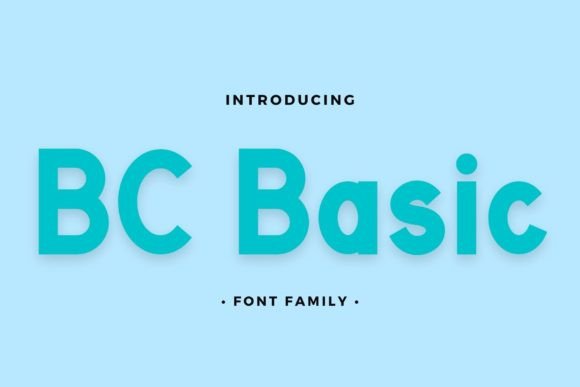
Bc Basic: A Clean Sans Serif for Modern Editorial
I sat down last Tuesday with a blank canvas for my upcoming lifestyle newsletter, feeling that familiar creative block. The layout was structured, the content was written, but the visual voice felt off. I needed a typeface that could carry the weight of a professional publication without shouting for attention. That is when I turned to Bc Basic, a simple and clean sans serif font that promised exactly the kind of quiet confidence my project lacked. As I began typing the headline, it became immediately clear why this specific set of Fonts has become a go-to choice for independent publishers and design-conscious creators.
Why Bc Basic Defines Modern Blog Headers and Titles
When selecting Fonts for a digital magazine or a personal blog, the header is often the first thing a reader encounters, setting the tone for everything that follows. Bc Basic excels in this role because its geometry is balanced yet approachable. Unlike many aggressive display fonts that dominate the screen, this sans serif font allows the words themselves to breathe. I tested it on a mock-up for a recipe ebook cover, and the result was instantly legible even at smaller sizes. The letterforms are open and friendly, creating an immediate sense of trust and clarity that is essential for editorial design. If you are looking for a way to make your blog headers pop without sacrificing readability, Bc Basic offers a refined solution that feels both contemporary and timeless.
Creating Visual Hierarchy with Bc Basic in Printables
One of the most challenging aspects of designing printable planners or coaching workbooks is establishing a clear visual hierarchy without cluttering the page. Bc Basic solves this by offering a versatile range of weights that guide the eye naturally from section headings to body text. In my recent test run for a digital course PDF, I used the bolder variations of this sans serif font for chapter openers and pull quotes, while reserving the lighter weights for subtitles. The contrast created a rhythm that made the dense information feel manageable and inviting. This level of control is rare in free Fonts, making Bc Basic a premium asset for anyone serious about their brand identity. Whether you are designing a wedding guide or a business proposal, the ability to scale these characters effectively ensures your message lands with precision.
Bc Basic for Wedding Invitations and Elegant Branding
There is a misconception that sans serif fonts lack the romance required for wedding stationery or luxury branding, but Bc Basic proves otherwise. Its clean lines and neutral stance allow it to pair beautifully with more decorative elements like script fonts or handwritten accents. When I sketched out a concept for a minimalist wedding invitation suite, using Bc Basic for the venue details and date provided a crisp backdrop that let the couple's names shine. This versatility means the font can easily be matched to an incredibly large set of projects, from high-end packaging design to intimate event graphics. It does not impose a heavy personality; instead, it supports the existing mood of the design, making it an ideal choice for brands that value elegance and simplicity over loud trends.
Enhancing Readability in Long-Form Content and Ebooks
While many designers reach for elaborate scripts for titles, the true test of a great font lies in its performance within long-form reading materials. Bc Basic shines here as a highly readable sans serif font that reduces eye strain during extended reading sessions. For my latest article series, I swapped out a complex typeface for this one and noticed how much smoother the reading experience became. The x-height is generous, ensuring that lowercase letters remain distinct on mobile screens, which is crucial for modern newsletters and digital magazines. If you are an author creating an ebook or a coach building a workbook, choosing Fonts that prioritize user comfort is non-negotiable. Bc Basic delivers this comfort effortlessly, allowing your audience to focus entirely on your content rather than struggling with the typography.
How Bc Basic Supports Digital Magazine Layouts
Digital magazine layouts require a font that looks just as sharp on a tablet as it does on a desktop monitor. Bc Basic maintains its structural integrity across various resolutions, making it a reliable workhorse for responsive web design and app interfaces. During my redesign of a monthly creator newsletter, I utilized this typeface for navigation menus, captions, and sidebars. The consistency it brought to the layout unified disparate sections into a cohesive whole. Many generic Fonts break down or appear blurry when scaled up for large hero images, but Bc Basic retains its crisp edges and clean curves. This reliability is vital for publishers who need their designs to look professional regardless of where they are viewed. By adding this font to your creative designs, you ensure that your publication maintains a polished appearance across all devices.
Pairing Bc Basic with Serifs for Maximum Impact
The true power of Bc Basic emerges when it is paired strategically with other typefaces. In editorial design, combining a clean sans serif with a classic serif font creates a dynamic tension that keeps readers engaged. I found that pairing Bc Basic with a traditional serif for body copy resulted in a sophisticated look that elevated the perceived value of my content. The neutrality of the sans serif allows the serif to take center stage for storytelling, while the sans serif provides structure for headlines and UI elements. This combination works exceptionally well for lifestyle blogs, travel guides, and fashion editorials. When selecting Fonts for your next project, consider how Bc Basic can act as the perfect foil to more ornate styles, creating a balanced and harmonious typographic system.
Elevating Your Creative Designs with Bc Basic
In the end, the right font can transform a good design into a great one. Bc Basic offers that transformative quality through its blend of simplicity, versatility, and readability. Whether you are crafting a logo, designing a social media graphic, or laying out a full-length book, this sans serif font adapts to your needs without losing its character. Add it to your creative designs and notice how it makes your work feel more intentional and professional. For bloggers, publishers, and independent creators, having a reliable tool like Bc Basic in your arsenal is a game-changer. It empowers you to focus on your message while the typography quietly does the heavy lifting, ensuring your audience stays engaged from the first word to the last.